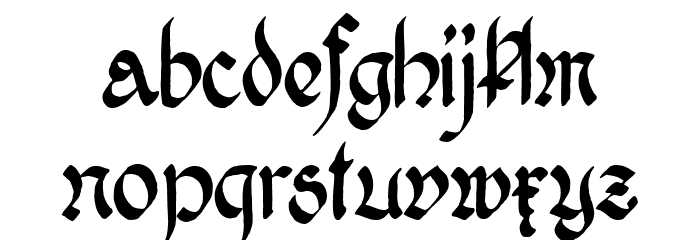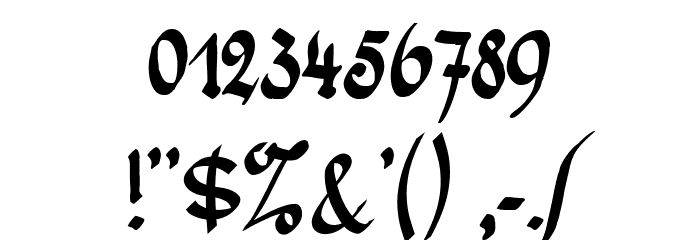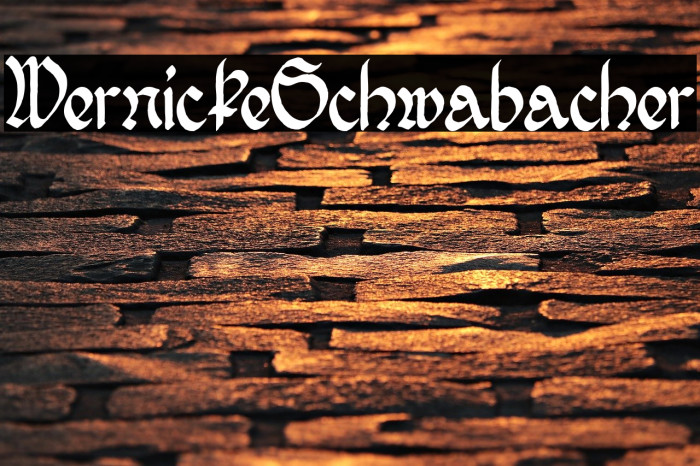
WernickeSchwabacher Font
This font exhibits a traditional blackletter style, characterized by its ornate and intricate design. The letters are bold and angular, with sharp edges and dramatic curves that give it a distinct medieval appearance. The uppercase letters are particularly elaborate, featuring flourishes and decorative elements that enhance their visual impact. The lowercase letters maintain the same stylistic elements but are slightly more restrained, ensuring readability. Numbers and special characters are designed to match the overall aesthetic, with consistent stroke weight and embellishments. This font is ideal for projects that require a historical or gothic touch, offering a sense of elegance and formality.
A bold, ornate blackletter font with a medieval aesthetic.
- Category: Blackletter
- Overall Style: Vintage